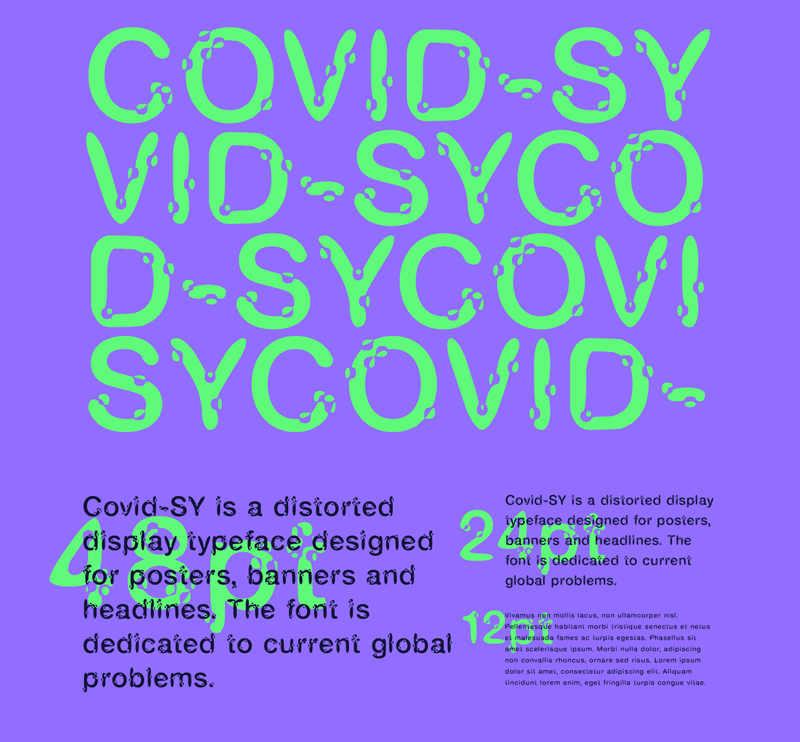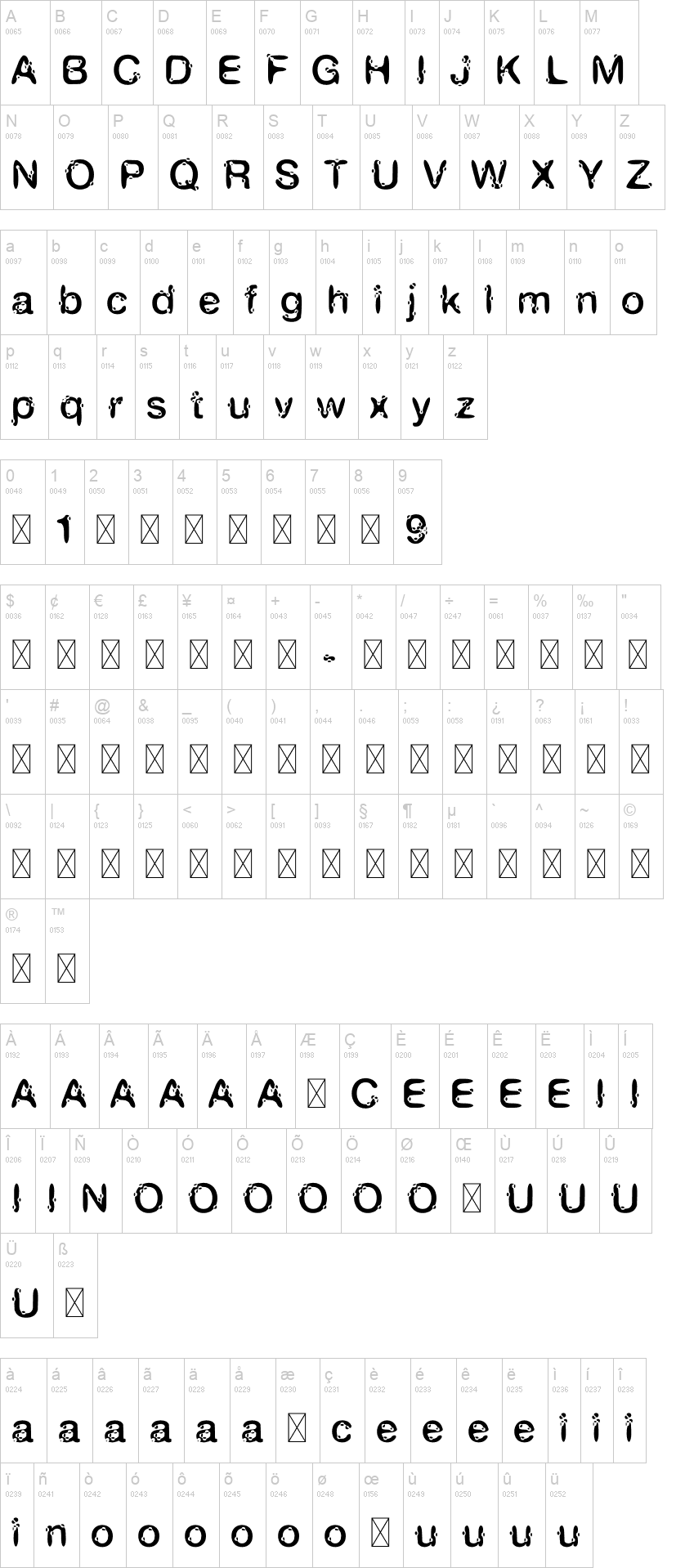
Note of the authorCovid-SY is a distorted display typeface designed for posters, banners and headlines.
The font is dedicated to current global problems.